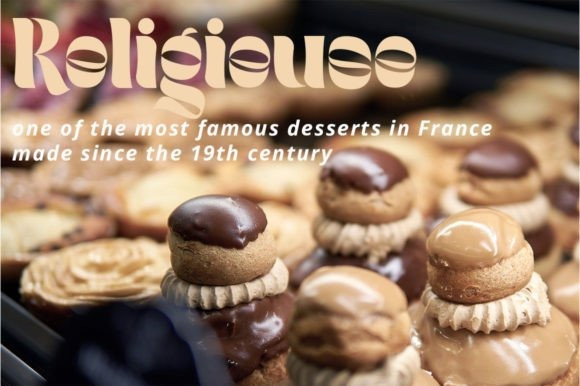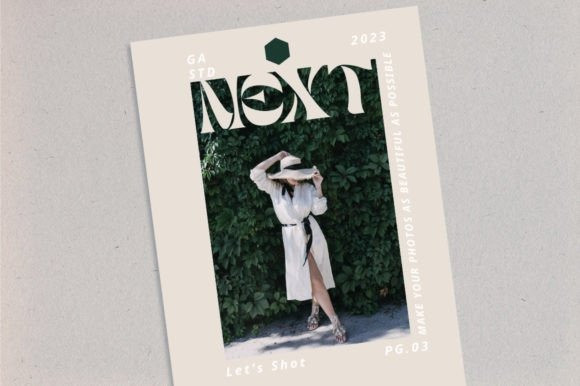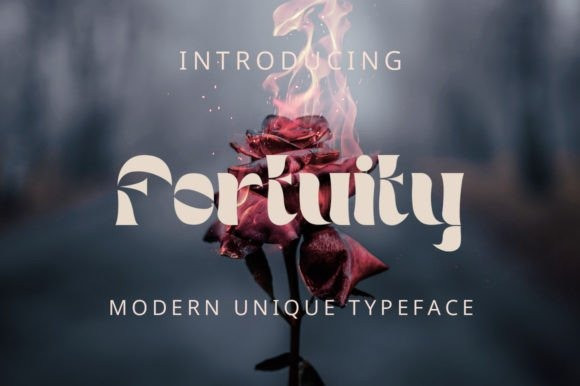
Fortuity Font
Fortuity Font is a typography that carries a unique and classic theme but has a modern and bold feel. Perfect if you need a unique touch to your project.